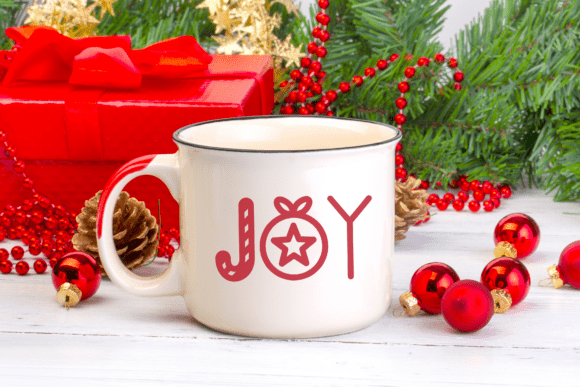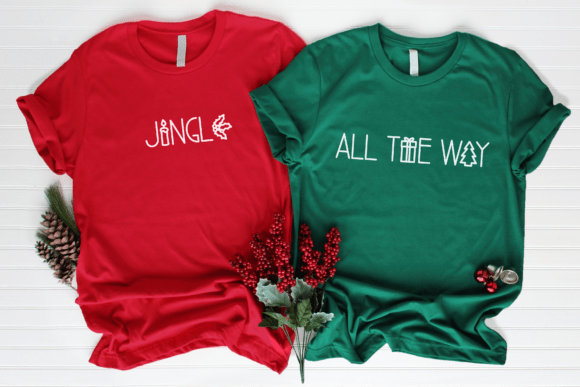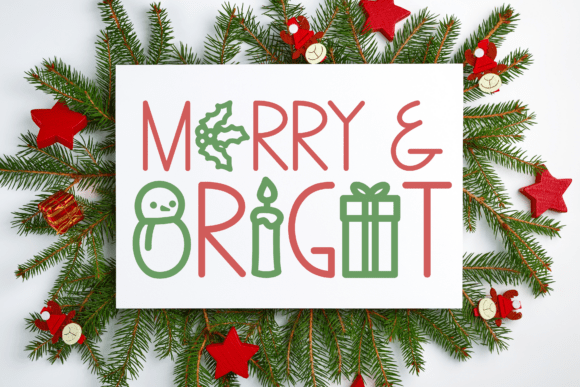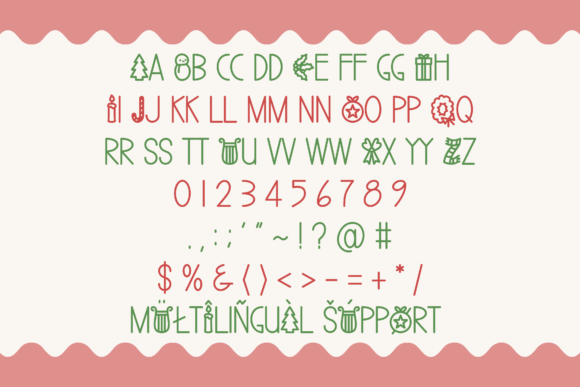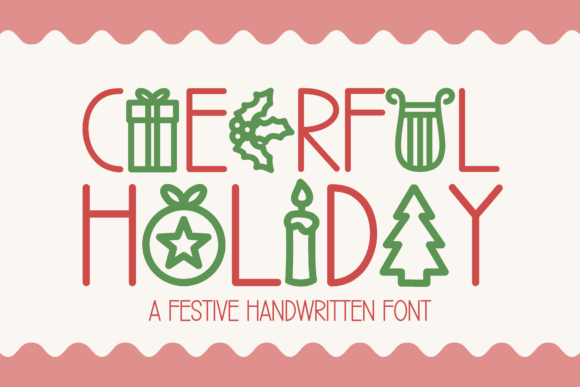
Introducing Cheerful Holiday Font: Spread Joy and Festivity with this Playful Typeface
The holiday season is upon us, and what better way to get into the spirit than with a font that’s as cheerful as it is festive? Look no further than Cheerful Holiday Font, a delightful decorative typeface designed to bring a smile to your face and a touch of magic to your designs. In this article, we’ll dive into the charming world of Cheerful Holiday, exploring its unique features, uses, and benefits for designers and crafters alike.
A Festive Font with a Playful Personality
Cheerful Holiday Font is a carefully crafted decorative font that embodies the joy and wonder of the holiday season. Its playful letterforms are infused with a sense of whimsy and fun, making it the perfect choice for anyone looking to add a dash of festive flair to their designs. Whether you’re creating holiday cards, seasonal invitations, gift tags, posters, or cozy winter crafts, Cheerful Holiday is sure to bring a bright, cheerful spirit to every project.
Delightful Special Accents and Readability
One of the standout features of Cheerful Holiday Font is its delightful special accents, which add a fun surprise to your designs without overwhelming readability. Some characters feature charming extra details that will make your designs pop, from tiny snowflakes to holly leaves. These accents not only add visual interest but also help to create a sense of cohesion and consistency in your designs.
Despite its decorative nature, Cheerful Holiday Font remains highly readable, making it perfect for use in a variety of applications, from large headings to smaller body text. Its warm and whimsical personality shines through in every letterform, ensuring that your designs feel approachable, friendly, and inviting.
Perfect for Holiday Projects and Winter Crafts
Cheerful Holiday Font is specifically designed with the holiday season in mind, making it the perfect choice for a wide range of projects, including:
- Holiday cards and invitations: Add a touch of festive flair to your greetings and invitations with Cheerful Holiday’s playful letterforms.
- Gift tags and wrapping paper: Make your gifts stand out with a personalized touch of holiday cheer.
- Posters and flyers: Create eye-catching promotional materials that capture the spirit of the season.
- Cozy winter crafts: Add a dash of whimsy to your DIY projects, from knitted scarves to handmade ornaments.
So why choose Cheerful Holiday Font for your holiday projects? Here are just a few benefits for designers and crafters:
- Highly versatile: This font can be used in a wide range of applications, from digital designs to print materials.
- Unique and eye-catching: This font’s playful personality and special accents ensure that your designs will stand out from the crowd.
In conclusion, Cheerful Holiday Font is a delightful and festive typeface that’s sure to bring joy and festivity to your holiday designs. With its playful letterforms, special accents, and high readability, this font is perfect for designers and crafters looking to add a touch of holiday cheer to their projects. So why wait? Download Cheerful Holiday Font today and start spreading joy and festivity with your designs!
Whether you’re a seasoned designer or a crafty DIY enthusiast, Cheerful Holiday Font is sure to become a go-to typeface in your collection. Its warm and whimsical personality makes it the perfect choice for any holiday project, and its ease of use ensures that you can focus on the fun stuff – creating beautiful, eye-catching designs that capture the spirit of the season.
So go ahead, get creative, and let Cheerful Holiday Font bring a smile to your face and a touch of magic to your designs. Happy holidays!